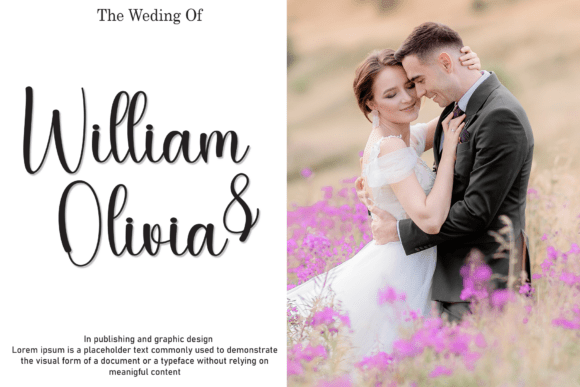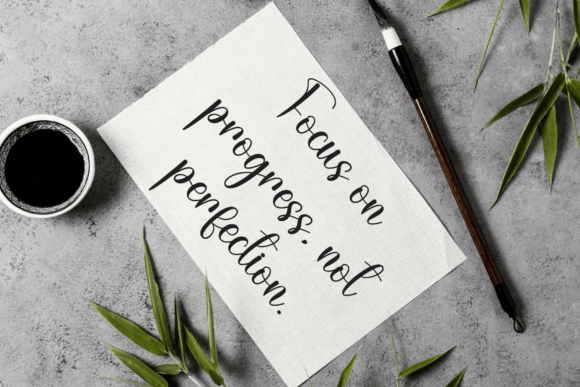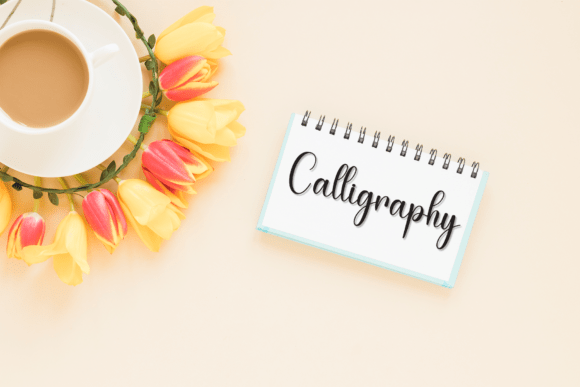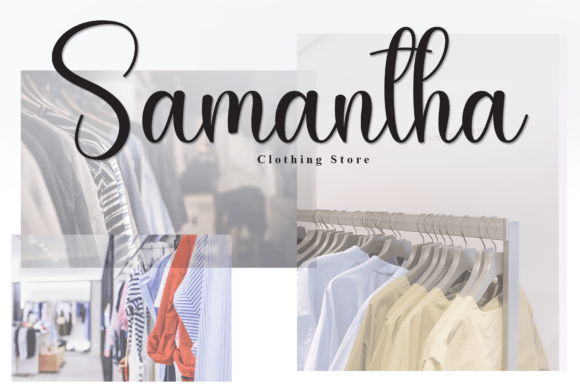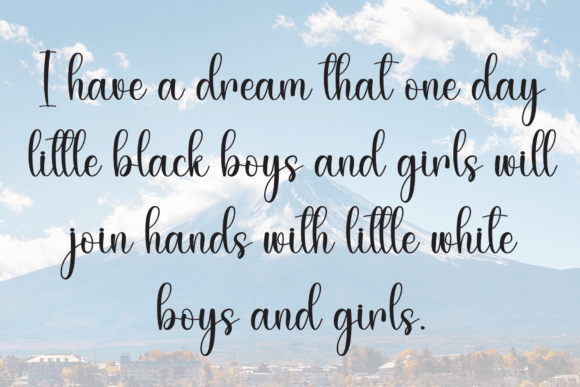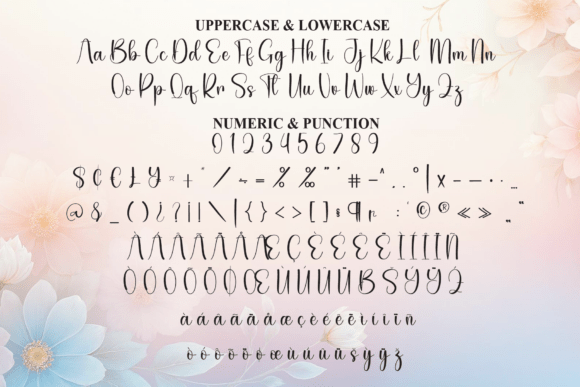
Discover the Sweet Charm of Handwritten Design
As a designer, have you ever felt like your creative vision is missing that special something – a dash of personality that makes your designs truly unforgettable? For me, it was the moment I stumbled upon a handwritten note from a dear friend, adorned with playful flourishes and quirks that spoke directly to my heart. That’s when I knew I had to find a font that captured the essence of handwritten charm.
Introducing Beautifull Font’s ‘Sugar Script’, a delightful and personable handwritten display font that infuses a touch of whimsy and fun into any design layout. With its playful and vibrant style, ‘Sugar Script’ is the perfect choice for scripting wedding invites, crafting thoughtful cards, or imbuing any creative project with a dash of personality. Whether you’re a seasoned designer or a creative enthusiast, ‘Sugar Script’ is a valuable addition to your design arsenal, offering a unique and friendly handwriting style that’s sure to delight.
Key Features of “Beautiful Font”
- Font Family: “Beautiful Font” is a unique, hand-designed font family with 12 styles, including regular, italic, bold, and bold italic.
- Unique Characteristics: Features a unique, elegant design with subtle flourishes and intricate details, adding a touch of sophistication to any design project.
Designer Review: Beautifull Font
Overall, I think Beautifull Font is a solid choice for designers looking for a unique, elegant font. ✨ Here are some things that work well:
- Beautifully crafted letterforms with a mix of classic and modern elements
- Perfect for use in branding, advertising, and editorial design
- Supports a wide range of languages, making it a great choice for global brands
However, like any font, Beautifull Font has its limitations. ⚠️ Here are a few things to keep in mind:
- Limited character set, which may not be suitable for complex or technical content
- May not be as readable in small sizes or at high resolutions
- Not ideal for use in digital interfaces, due to its high contrast and ornate details
Overall, I think Beautifull Font is a great choice for designers who want to add a touch of sophistication and elegance to their projects. While it may have some limitations, it’s a solid addition to any font library.
Tips for Getting the Most Out of Beautiful Font
Use Beautiful Font for headings and titles to add a touch of elegance to your design.
Combine Beautiful Font with other fonts to create a unique and visually appealing typography.
Use Beautiful Font for:
Brand logos and identity design
Magazine and book covers